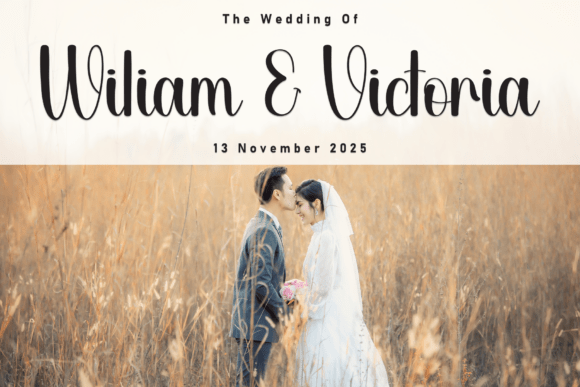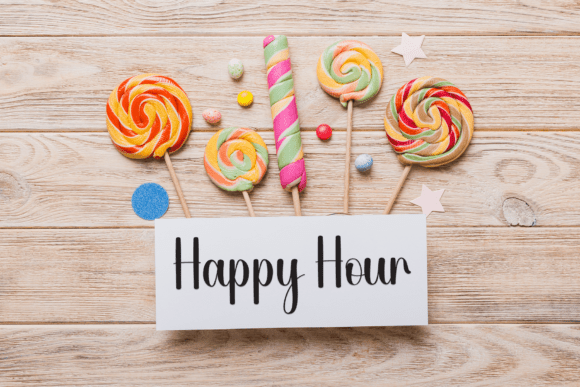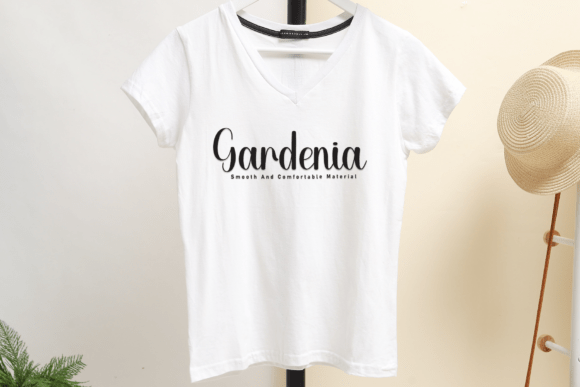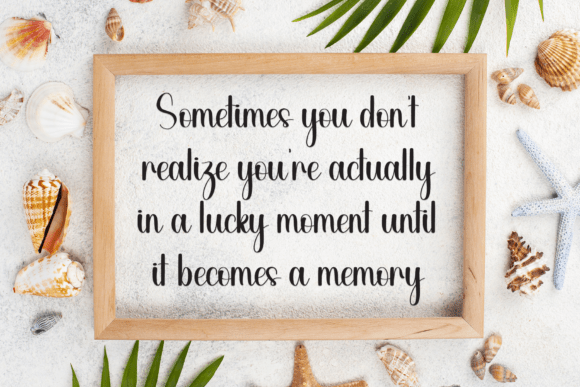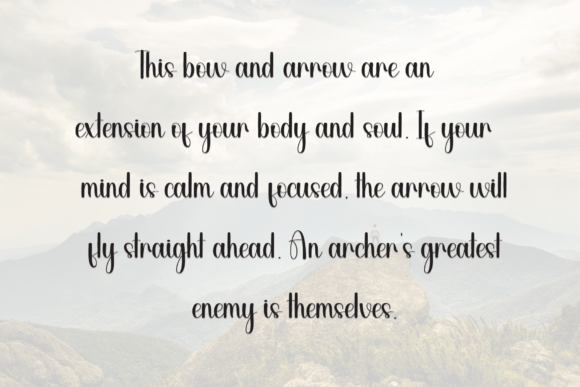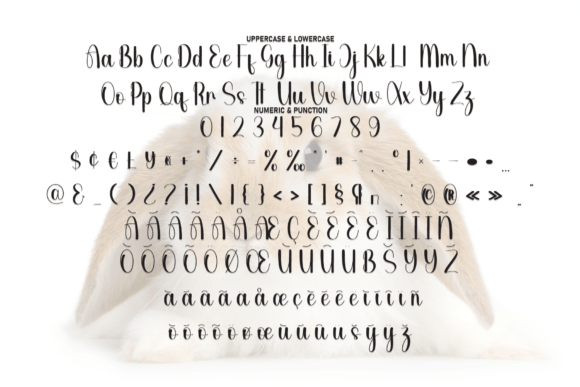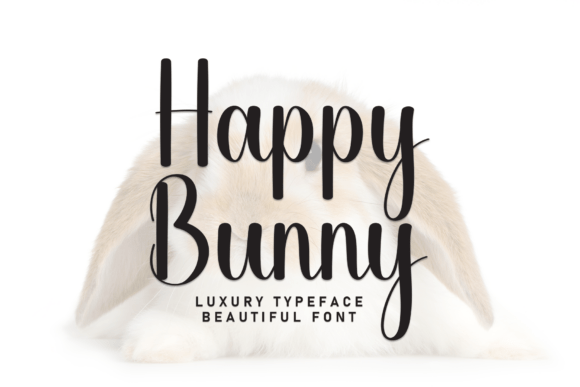
Introducing Happy Bunny: The Ultimate Stylish Script Font for Creative Designs
Are you tired of using the same old fonts for your designs? Look no further! Happy Bunny is a stylish script font that is sure to add a creative and sophisticated touch to any design. With its fluid brush strokes, dynamic curves, and expressive letterforms, Happy Bunny captures the essence of hand-painted calligraphy with a modern twist.
What Makes Happy Bunny Special?
Happy Bunny is not just another font – it’s an artistic statement. Its unique blend of traditional calligraphy and modern design makes it perfect for designers and crafters looking to add a touch of elegance and whimsy to their work. Here are just a few features that make Happy Bunny stand out:
- Fluid Brush Strokes: Happy Bunny features fluid brush strokes that give it a natural, hand-painted look. This makes it perfect for designs that require a personal touch, such as invitations, packaging, and social media graphics.
- Dynamic Curves: The font’s dynamic curves add a sense of movement and energy to any design. This makes it ideal for logos, branding, and advertising materials that need to grab attention.
- Expressive Letterforms: Each letterform in Happy Bunny is carefully crafted to convey a sense of elegance and sophistication. The font’s expressive letterforms make it perfect for designs that require a touch of personality and whimsy.
Uses for Happy Bunny
Happy Bunny is a versatile font that can be used in a variety of design applications. Here are just a few ideas to get you started:
- Logos and Branding: Happy Bunny is perfect for creating unique and memorable logos that stand out from the crowd. Its elegant and sophisticated design makes it ideal for businesses that want to convey a sense of luxury and refinement.
- Invitations and Stationery: Add a touch of elegance and whimsy to your invitations and stationery with Happy Bunny. Its fluid brush strokes and dynamic curves make it perfect for wedding invitations, birthday cards, and other special occasions.
- Packaging and Product Design: Happy Bunny is a great choice for packaging and product design. Its unique and eye-catching design makes it perfect for product labels, packaging, and point-of-purchase displays.
- Social Media Graphics: Happy Bunny is also perfect for social media graphics, such as Facebook posts, Instagram stories, and Twitter headers. Its bold and expressive design makes it sure to grab attention and engage your audience.
Why Choose Happy Bunny?
With so many fonts to choose from, why choose Happy Bunny? Here are just a few reasons why Happy Bunny stands out from the crowd:
- Unique and Original Design: Happy Bunny features a unique and original design that is sure to set your designs apart from the crowd.
- High-Quality Typography: Happy Bunny is a high-quality font that is designed to deliver crisp and clear typography, even at small sizes.
- Versatile: Happy Bunny is a versatile font that can be used in a variety of design applications, from logos and branding to social media graphics and packaging.
In conclusion, Happy Bunny is a stylish script font that is sure to add a creative and sophisticated touch to any design. With its fluid brush strokes, dynamic curves, and expressive letterforms, Happy Bunny captures the essence of hand-painted calligraphy with a modern twist. Whether you’re a designer, crafter, or DIY enthusiast, Happy Bunny is the perfect choice for anyone looking to add a touch of elegance and whimsy to their designs.